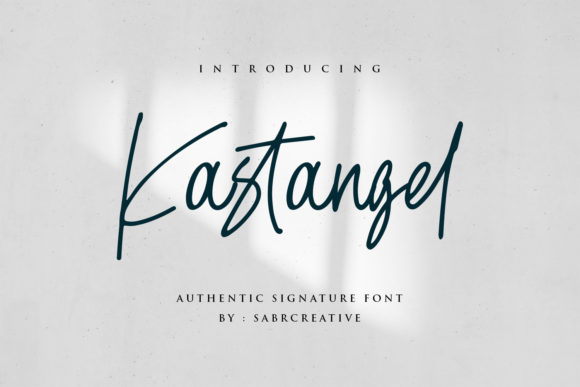
Immerse yourself in the world of stunning lettering with Kastangel Font, the ultimate expression of handwritten beauty. Each character in this script family emanates authenticity, flowing across your designs with an unmatched elegance.
Embrace the timeless charm of Kastangel and elevate your creative endeavors to new heights. Whether you're penning heartfelt notes, crafting enchanting invitations, or designing captivating logos, this script will infuse your projects with a touch of genuine artistry.
Let your imagination soar with Kastangel. Its light and casual nature unlocks a world of design possibilities, from whimsical greeting cards to effortlessly chic social media posts. Experience the joy of crafting personalized designs that speak to your unique style and captivate your audience.
Prepare to be swept away by the versatility of Kastangel. Perfectly suited for branding, packaging, and digital designs, this script has the power to transform ordinary concepts into extraordinary works of art. Its adaptability knows no bounds, allowing you to seamlessly integrate it into any design aesthetic.
Immersed in the beauty of Kastangel, you'll rediscover the art of penmanship. Each stroke, each curve, and each flourish becomes an extension of your creativity, adding a dash of undeniable personality to everything you create.